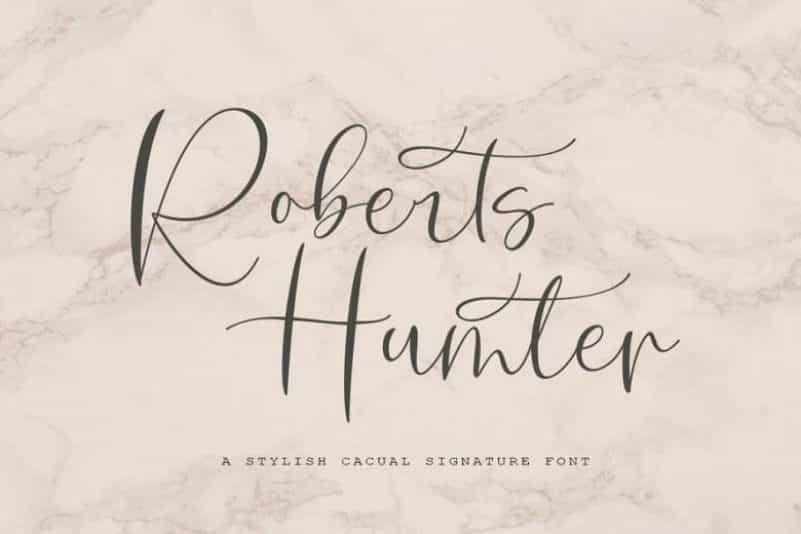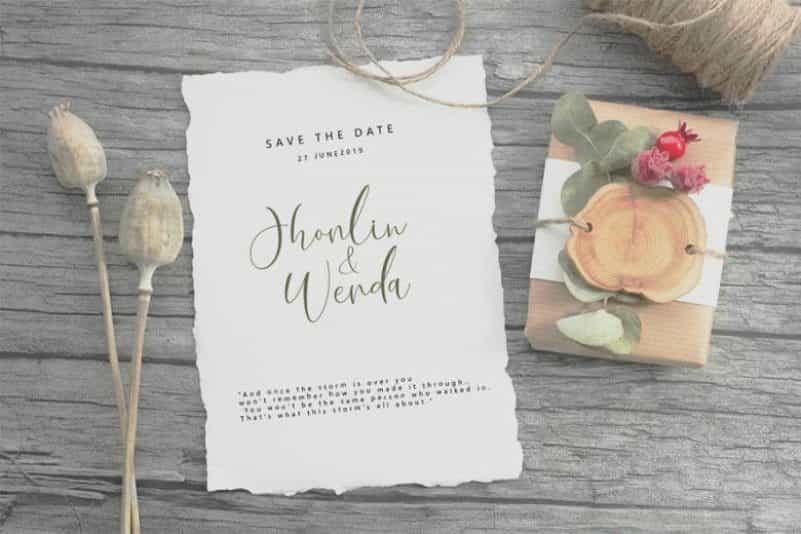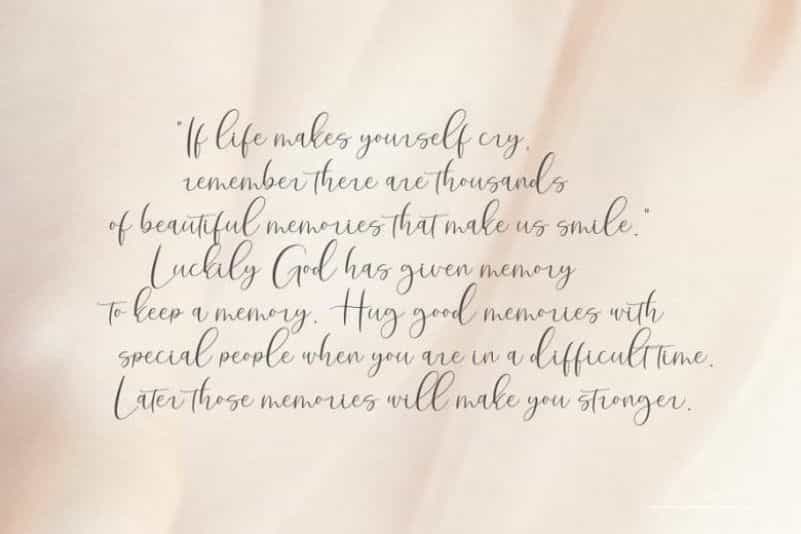
Introducing Roberts Humter Font!This is a modern calligraphy font with the current handwriting style, which is perfect for branding, wedding invites, magazines, mugs, business cards, quotes, posters, and more, you can try first if you want to buy this font.